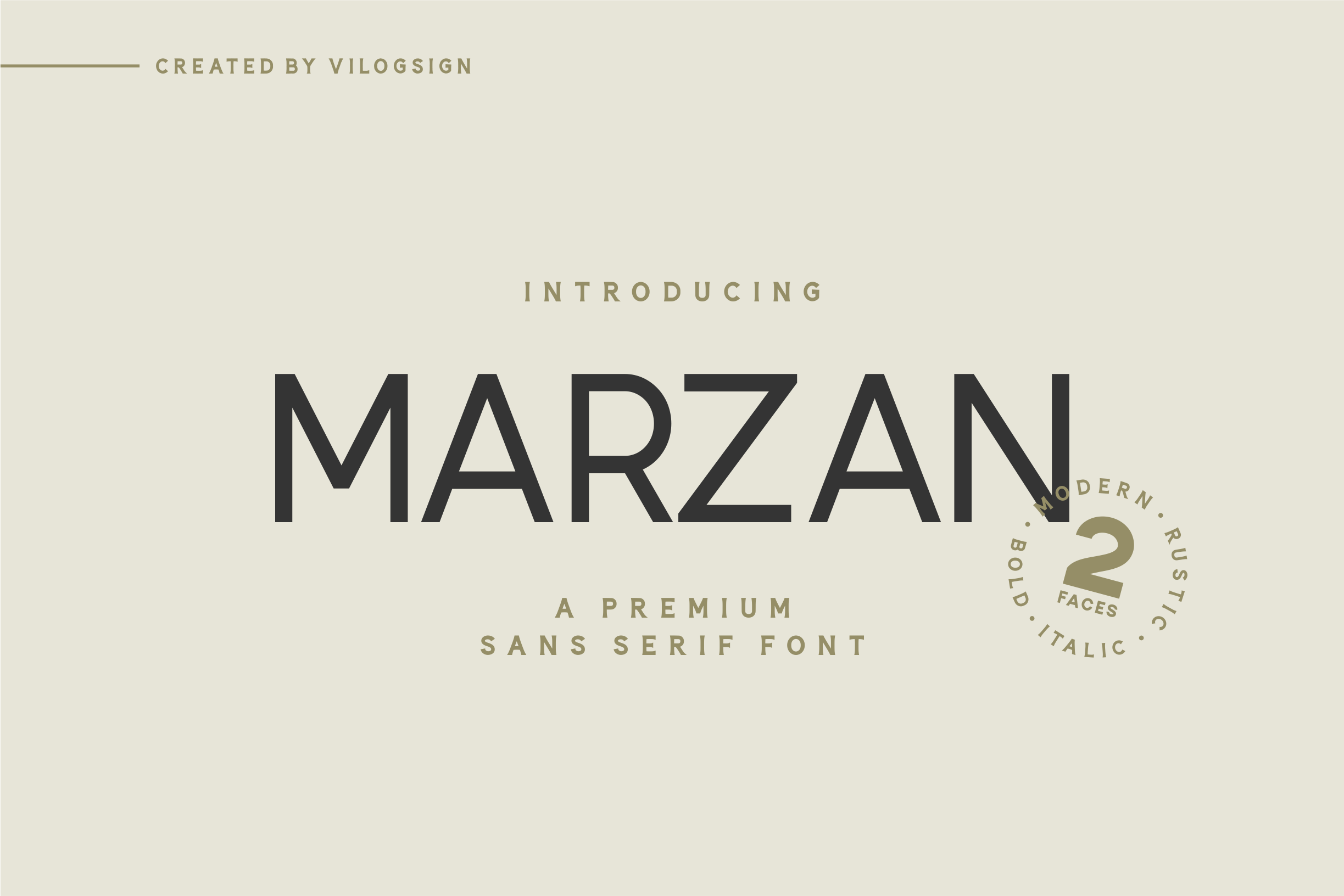
Marzan a Sans Serif Texture Font
Hi,,, Introducing "MARZAN" a Sans Serif Font!!!
MARZAN font is a sans serif font with a 2 face (Modern and texture). You can choose according to your needs. Comes with textures make this font look vintage. This type of font perfectly made to be applied especially in Branding, and the other various formal forms such as labels, logos, magazines, books, packaging, fashion, make up, stationery, novels, labels or any type of advertising purpose. This font is very amazing with multilingual support to complete your need.